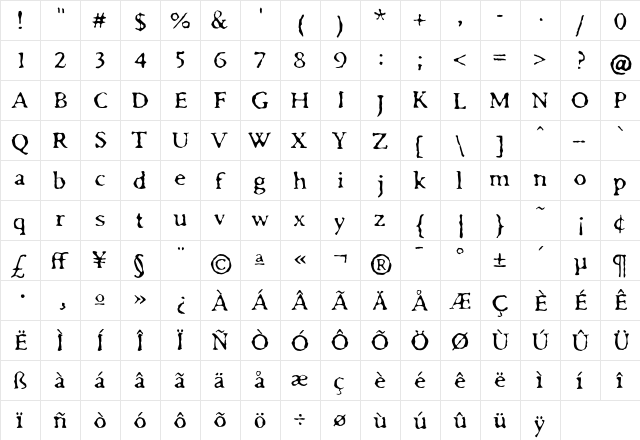
Irregular Light
Design Context for Irregular Typeface
Irregular takes a measured approach to typography — its balanced proportions and neutral character make it a reliable workhorse for both digital and print work. The delicate stroke weight brings airiness and refinement to layouts.